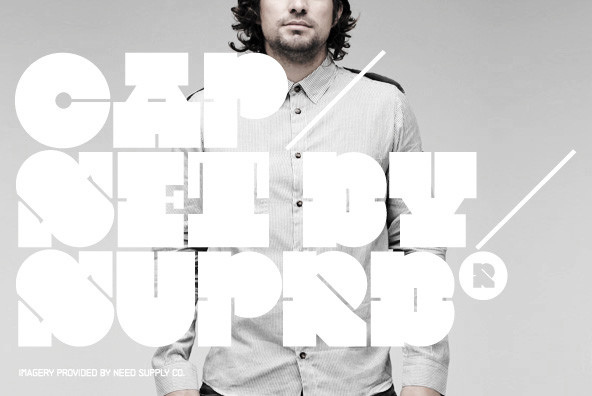
CAPSET Font
CAPSET Font is perfect for financial services branding, investment firm marketing, banking institution logos, capital management companies, corporate finance presentations, wealth advisory signage, economic consulting firms, and prestigious business communications. This authoritative typeface excels in applications where financial expertise and capital authority are essential for creating trustworthy and professional brand experiences that inspire investor confidence.
What makes CAPSET Font truly exciting is its commanding embodiment of financial authority and capital market sophistication that captures the precision of investment analysis and the institutional credibility required for successful wealth management. The font features strong, capitalized letterforms with financial-inspired details and systematic proportions that mirror the structured approach of capital markets and the disciplined methodology of professional investment management. Its authoritative personality and financial character create an immediate sense of institutional competence and market expertise that resonates with audiences seeking reliable financial guidance and capital growth solutions. The typeface's financial heritage and capital appeal make it perfect for brands wanting to convey expertise, stability, and connection to the sophisticated world of capital markets and wealth building strategies.
The CAPSET Font family includes multiple weights from Regular to Bold, complemented by financial alternates and capital-inspired decorative elements. The font offers comprehensive character sets with financial symbols, investment indicators, and capital styling details that enhance its professional aesthetic. Additional graphic elements including market patterns, financial motifs, capital ornaments, and investment flourishes provide designers with complete branding tools rooted in financial tradition and capital management culture.
For designers seeking an authoritative financial typeface, CAPSET Font Free Download represents an outstanding choice that brings capital authority to contemporary brand communications. Whether you're developing identities for investment companies, designing materials for financial institutions, or creating marketing campaigns for wealth management firms, this font delivers the financial credibility that appeals to investors and capital-focused audiences. Its commanding character and financial appeal make it particularly effective for brands in banking, investment, and financial advisory industries. The font's ability to convey authority, stability, and financial expertise makes it an invaluable asset for creating brand communications that celebrate capital growth, investment wisdom, and the essential role of professional financial guidance in building wealth, achieving financial security, and navigating the complex world of capital markets with confidence and strategic insight.